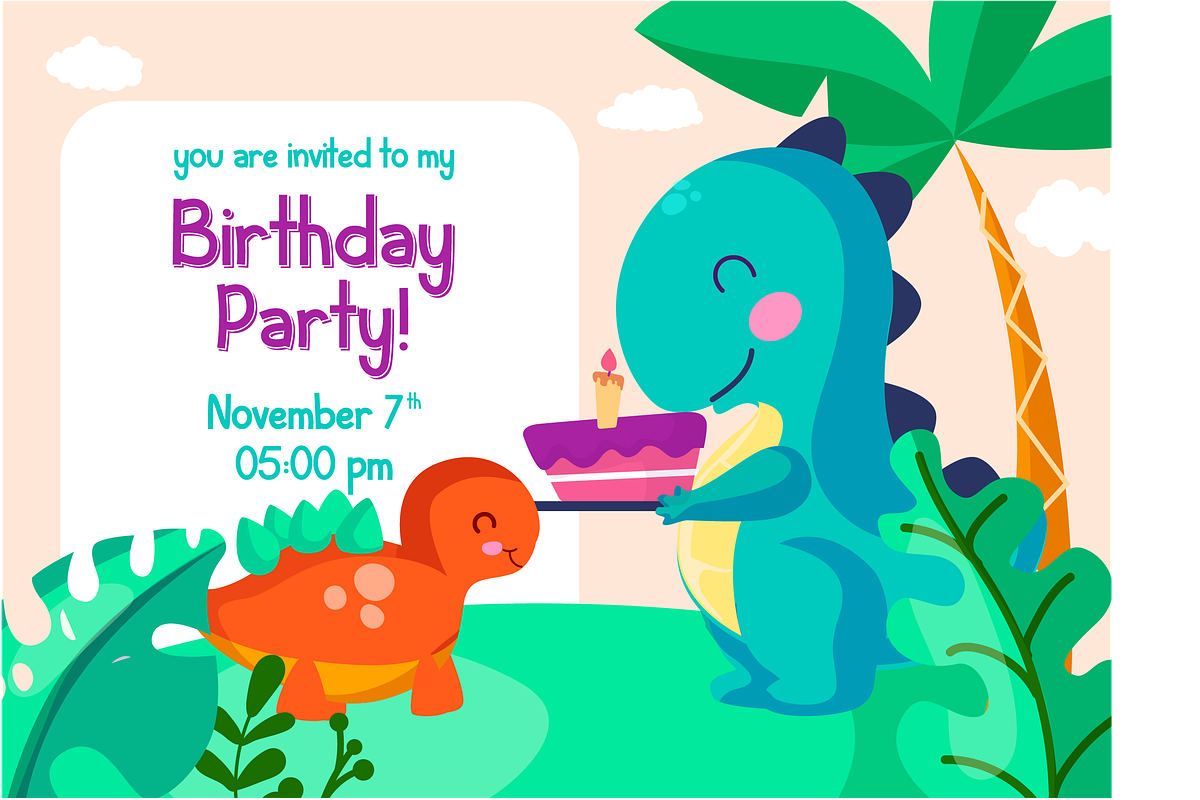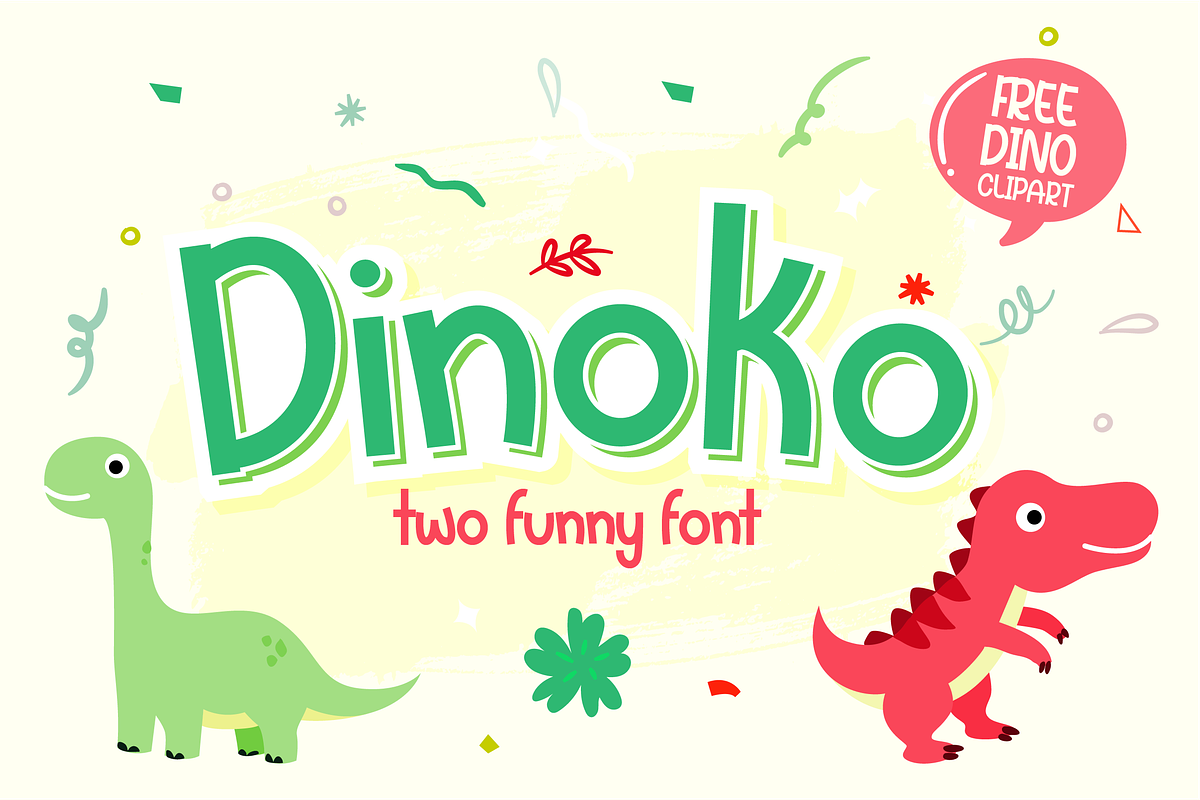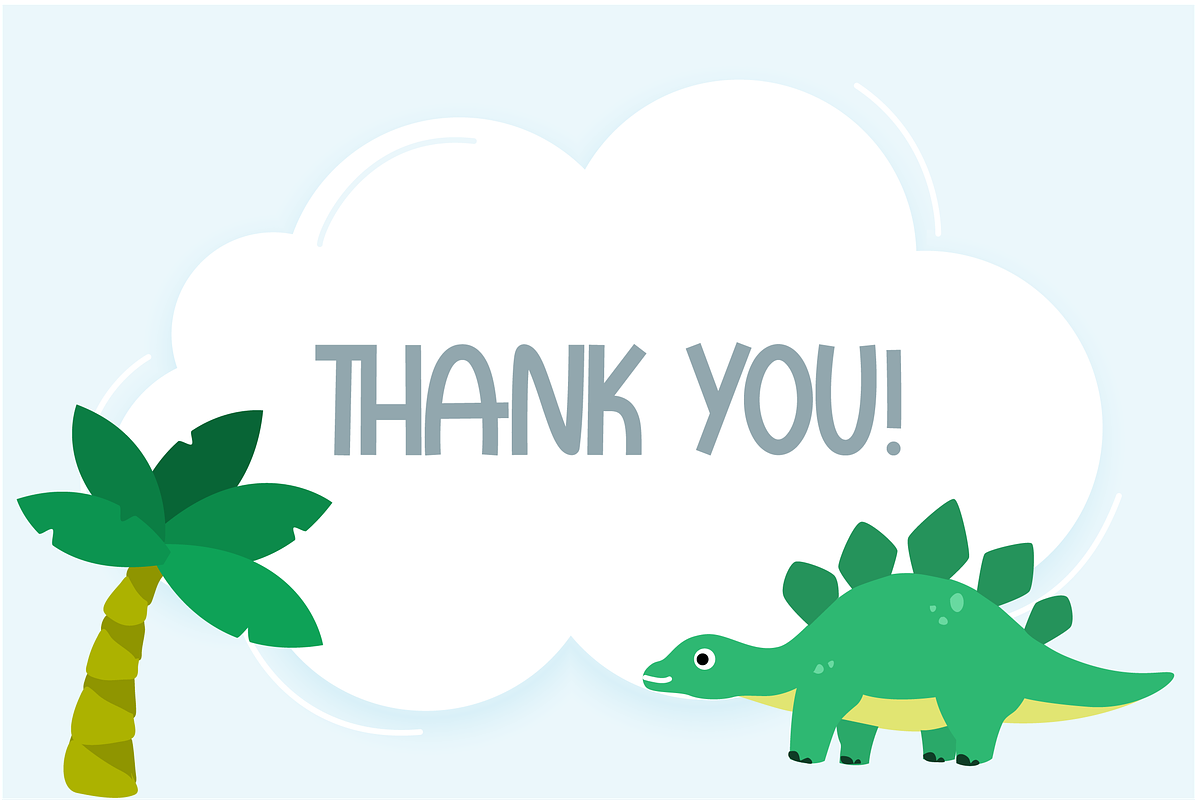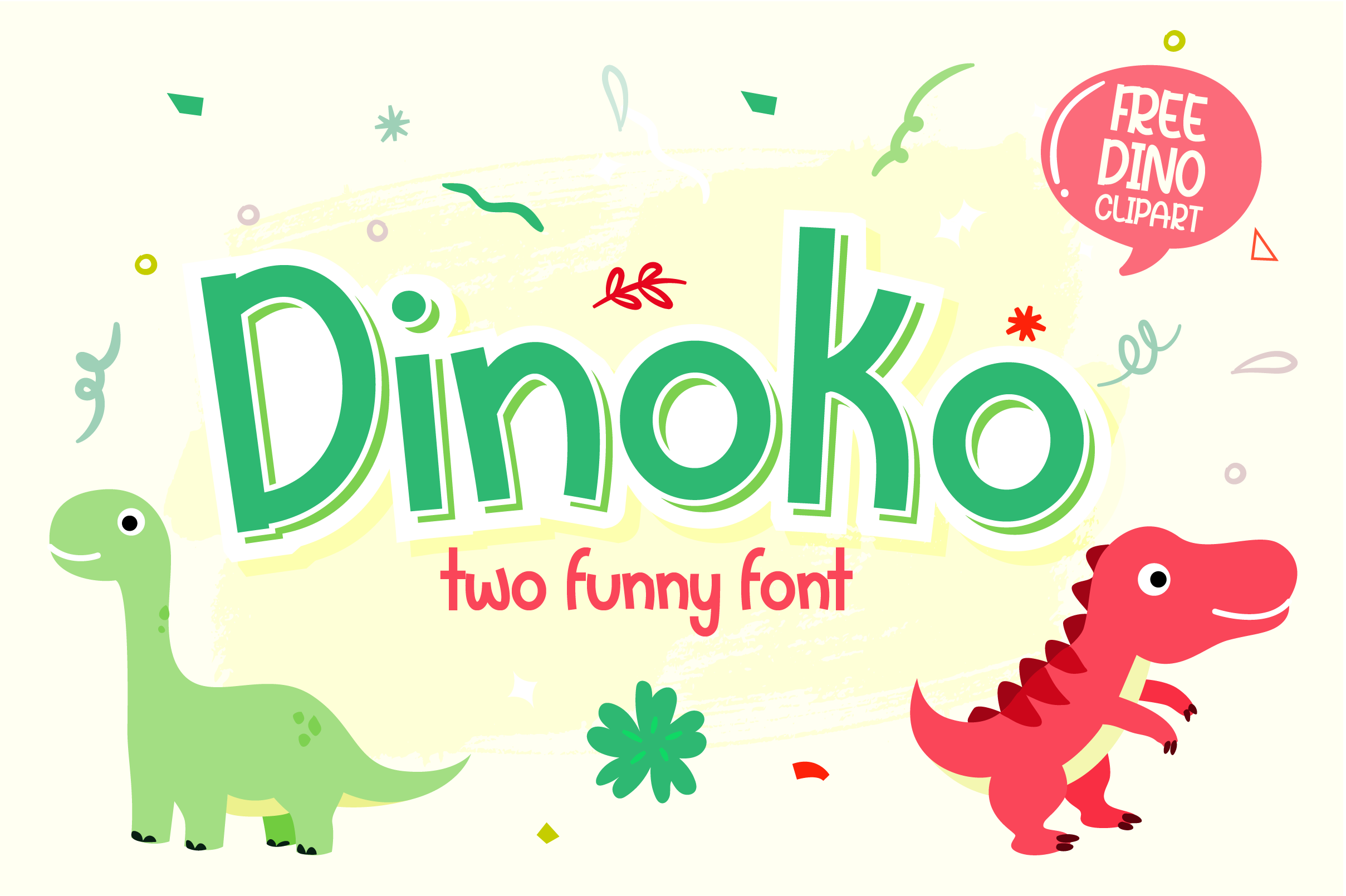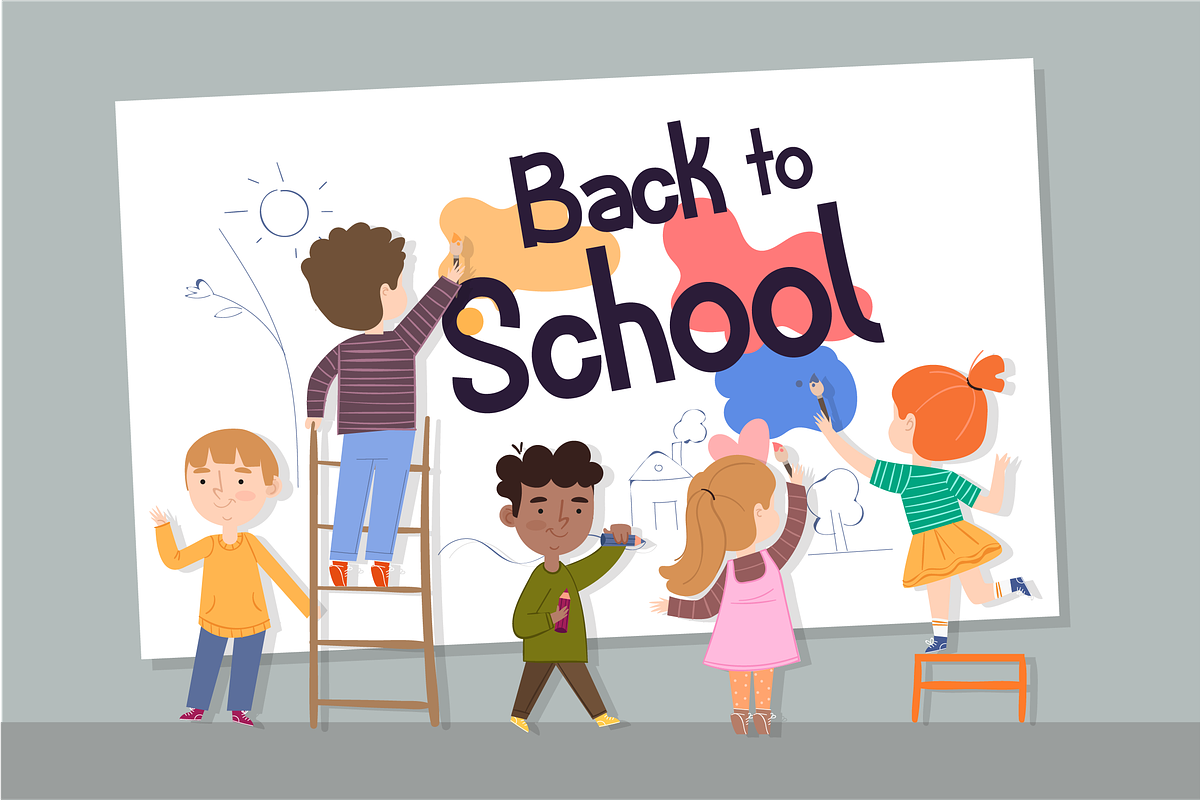
Dinoko - Cute layered font with dino
Dinoko is a bold display font with two style, carefully handcrafted to become a true favorite. Its funny makes it appear wonderfully cute, readable and, ultimately, incredibly versatile. Dinoko will look outstanding in any context, whether it’s being used on busy backgrounds or as a standalone headline!